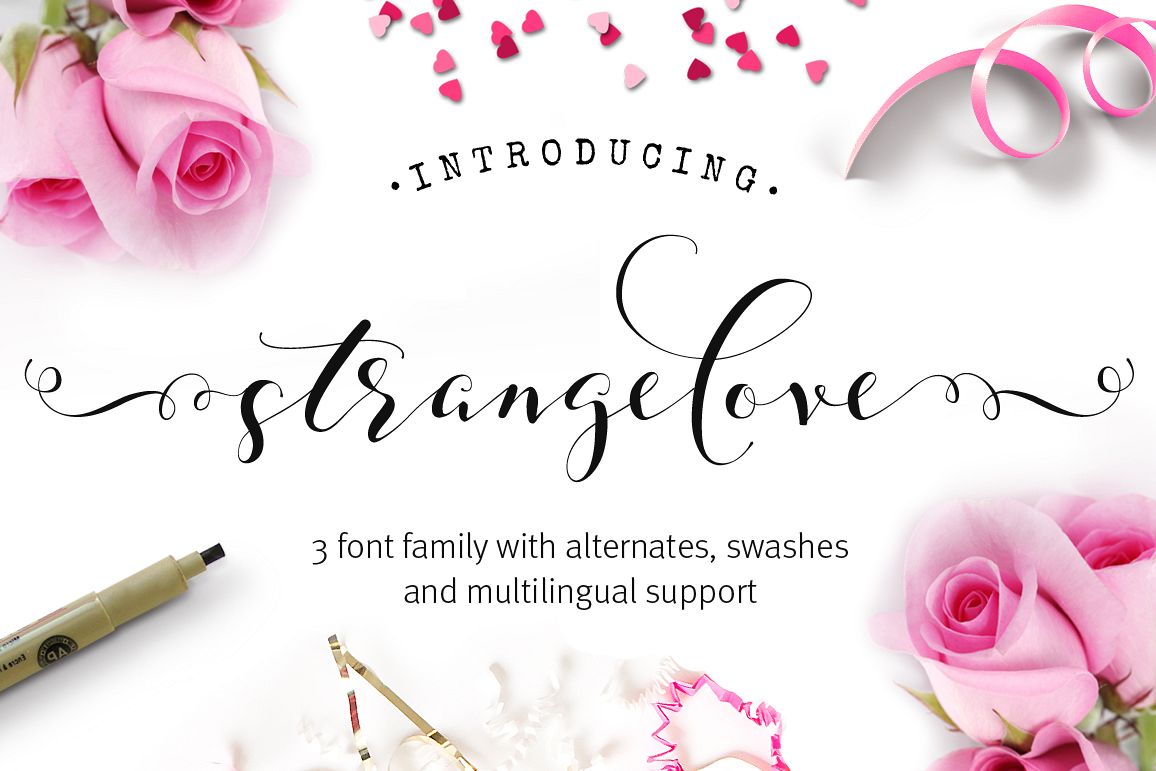
Strangelove Calligraphy Font - wedding font
Strangelove is a new family of 3 fonts which includes alternates, swashes and multilingual glyphs:
Strangelove - a gorgeous calligraphic font perfect for wedding stationery, lettering on greetings cards and any kind of artwork.
Strangelove Pen - a handwritten style version. This is perfect for a more informal look to your designs.
Strangelove Pen Bold
- A bolder version of Strangelove Pen. This font works extremely well with Strangelove Pen and for projects which need a heavier typeface.
Included with each of the above fonts is an alternates font - this includes lowercase alternative glyphs, ligatures and swashes.